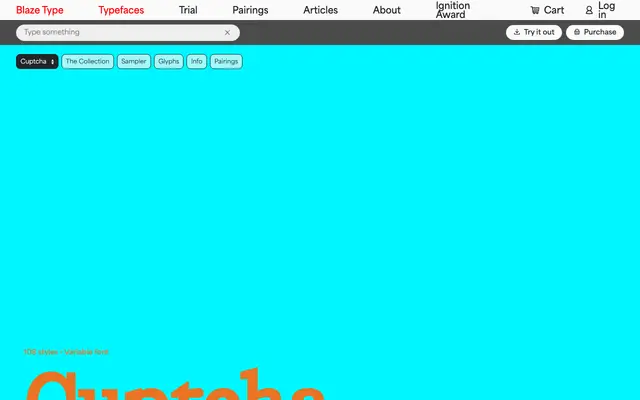
Cuptcha
A large-scale grotesque collection from Blaze Type spanning six widths and nine weights, available as a variable font across 108 styles.
Six width families run from Compressed to Wide, each carrying nine weights from Thin to Black with matching italics, totalling 108 styles. The variable font format allows continuous interpolation across both the weight and width axes. The breadth of the system makes it suited to identity and editorial work where a single type family must cover many different spatial conditions.
A contemporary grotesque sans-serif with no visible serif bracketing or humanist influence, offered across a broad width axis from Compressed to Wide suggesting a neutral, functional grotesque construction.